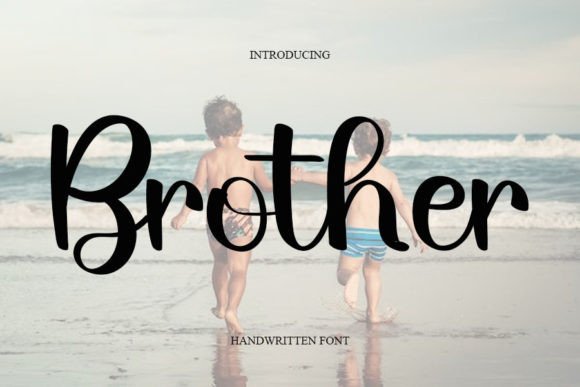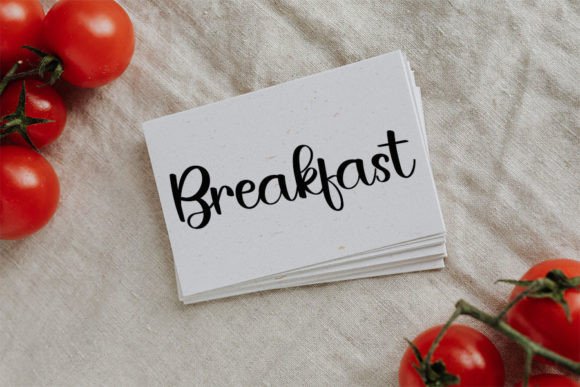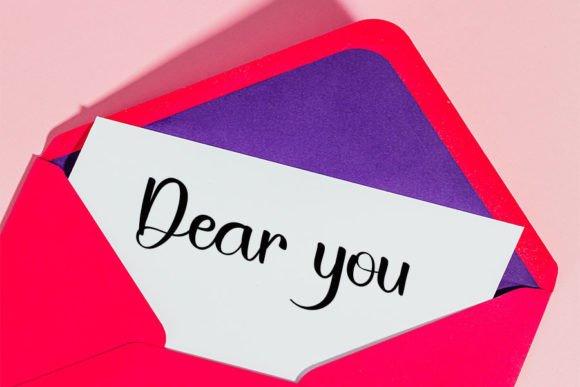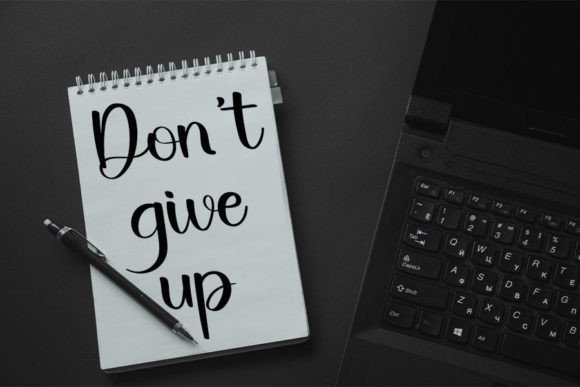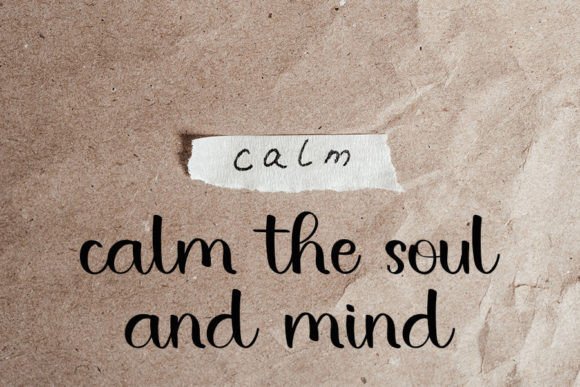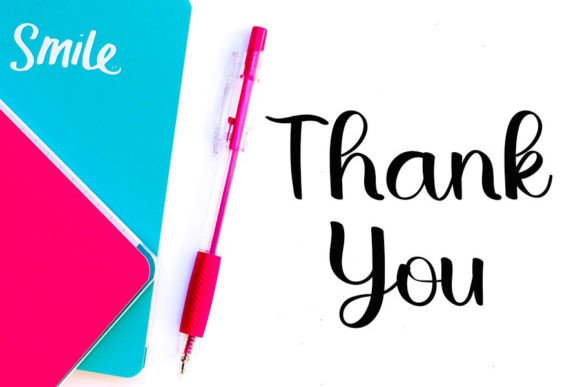
Brother Font
invitations, and creative designs.
About Brother Font
The Brother Font Download is a cute and casual handwritten typeface designed to bring warmth, personality, and friendliness to your projects. With its smooth strokes and natural handwritten style, Brother adds a personal touch that feels authentic and stylish at the same time. Its playful yet polished appearance makes it versatile enough for both professional design work and personal creative projects.
Whether you’re designing Instagram graphics, calligraphy scripts for DIY crafts, or personalized invitations, Brother adapts beautifully across a variety of applications. Its approachable look makes it a reliable choice for designers who want to create work that feels fun, engaging, and visually appealing.
Features of Brother Font
When you choose the Brother Font Download, you’ll enjoy:
• Cute handwritten script style with a friendly tone
• Smooth, casual strokes for natural flow and readability
• Versatility across print, digital, and craft projects
• Balanced letterforms that combine playfulness with elegance
• Approachable design that feels both stylish and warm
Best Uses for Brother Font
The Brother Font Download is highly adaptable and works perfectly in a wide variety of creative projects, including:
• Instagram posts and social media graphics – Add personality and charm to your visuals
• DIY crafts and handmade projects – Create a personal, handcrafted feel
• Wedding invitations and greeting cards – A casual script with elegance and warmth
• Logos and branding – Perfect for boutique, lifestyle, or creative businesses
• Product packaging and labels – Enhance your designs with a welcoming handwritten touch
• Event flyers and posters – Eye-catching typography that feels fun and friendly
• Home decor and wall art – Add personality to prints and inspirational quotes
Why Choose Brother Font
The Brother Font Download is more than just another handwritten script. Unlike fonts that are overly decorative or hard to read, Brother offers the perfect mix of clarity and personality. Its casual style ensures your text remains approachable, while its neat structure guarantees readability in both small and large sizes.
Designers love Brother because it adapts seamlessly to a wide range of projects. Whether you’re creating professional branding or simply adding charm to a personal craft project, this font delivers results that look polished, stylish, and friendly.
The Brother Font Download is a casual handwritten script with a cute and friendly design. Its approachable strokes, smooth readability, and versatile applications make it the perfect choice for social media graphics, invitations, packaging, DIY crafts, and more.